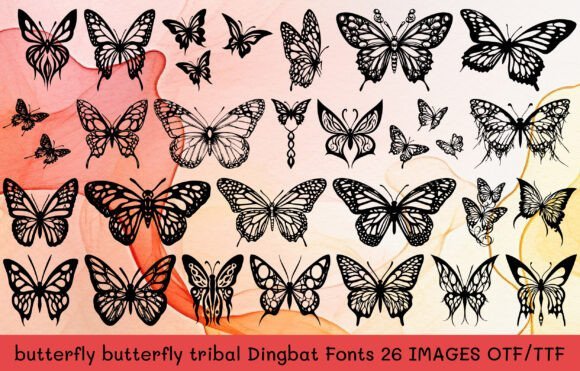
The Magic of Butterfly-Inspired Design
Do you remember the first time you saw a butterfly? The delicate dance of its wings, the vibrant colors, and the sense of wonder it evoked? For many designers, that magical moment is what sparks creativity and inspires new ideas. Today, we’re excited to share a digital product that captures the essence of that wonder: the Butterfly Tribal Font.
This unique font features 26 tribal-style butterfly designs, each one perfectly crafted to add a touch of whimsy to your creative projects. With its A-Z format, you can easily incorporate these stunning images into your designs, whether you’re crafting, printing, or working on a digital project. The Butterfly Tribal Font is available in both OTF and TTF file formats, making it easy to use and integrate into your workflow.
Key Features of Butterfly Tribal Font
- Font Style: A unique, hand-drawn tribal font with a playful and exotic feel.
- Character Count: 250+ characters, including uppercase and lowercase letters, numbers, and special characters.
- Unique Characteristics: Features intricate details, such as hand-drawn lines and subtle texture, giving it a one-of-a-kind look.
Designer Review: Butterfly Tribal Font
First off, let’s talk about what I love about this font ✨. The organic feel and hand-drawn look are really unique and give it a lot of character. The wide range of weights and styles make it super versatile, so you can use it for anything from logos to body text. I also appreciate the beautiful, flowing curves that evoke a sense of movement and freedom.
Now, onto the not-so-great stuff ⚠️. One thing that bothered me was the lack of consistency in the font’s spacing and kerning. Sometimes it looks a bit wonky, especially at smaller sizes. I also wished there were more linguistic support options, as it’s not as widely supported as some other fonts. And finally, the scalability can be a bit tricky to work with – it’s best used at larger sizes or for specific design elements.
Overall, I think Butterfly Tribal Font is a great choice for designers who want to add a bit of whimsy and personality to their work. Just be aware of its limitations and use it judiciously.
- ✨ Organic feel and hand-drawn look
- ✨ Wide range of weights and styles
- ✨ Beautiful, flowing curves
- ⚠️ Lack of consistency in spacing and kerning
- ⚠️ Limited linguistic support options
- ⚠️ Tricky scalability
The Butterfly Tribal Font is ideal for:
1. Creating eye-catching titles and headings.
2. Designing tribal-inspired artwork and graphics.
3. Adding a touch of bohemian flair to your branding and marketing materials.